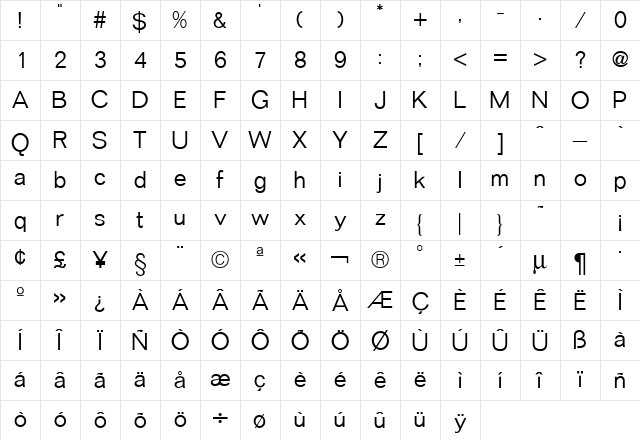
Folio ICG Light Free Font
Folio ICG Light
Design Context for Folio ICG
Folio ICG is a composed and adaptable typeface that performs quietly and consistently across a wide range of design contexts. Its slender proportions lend an understated elegance to any composition.